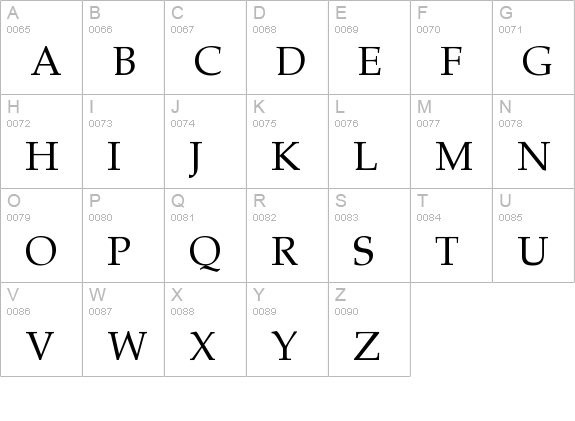
Palton Font Details
Palton is a breathtakingly beautiful font that exudes elegance and sophistication. Its sleek lines and graceful curves make it the perfect choice for any design project that requires a touch of class. Whether you're creating a stunning logo, designing an eye-catching poster, or crafting a memorable invitation, Palton will effortlessly captivate your audience. This exquisite font boasts a wide range of characters, ensuring that you have all the tools you need to bring your creative vision to life. From uppercase letters to lowercase letters, from punctuation marks to numerals, Palton offers a complete set of glyphs that can be seamlessly integrated into any typography project. But what truly sets Palton apart is its versatility and accessibility. Not only is this font visually striking, but it is also freely available for download at FontsMarket.com. Yes, you read that right – Palton can be yours at no cost whatsoever! This means that you can enjoy the beauty and sophistication of this font without breaking the bank. Moreover, Palton is compatible with various design software and platforms, making it the perfect choice for both professional graphic designers and amateurs alike. Whether you're working on Adobe Photoshop, Illustrator, or InDesign, or even if you prefer to use Canva or Microsoft Office, Palton will seamlessly integrate into your workflow, enhancing your creativity and taking your designs to the next level. So why wait? Embrace the elegance and beauty of Palton font in your next design project. Download it for free at FontsMarket.com and let this stunning font elevate your creations to new heights. With Palton, you have the power to captivate and inspire your audience like never before.